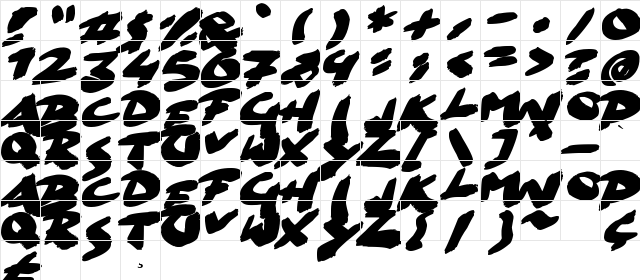
Go Faster Brush Regular
Design Context for Go Faster Brush Typeface
Go Faster Brush flows with the natural rhythm of handwritten lettering, making it ideal for designs that call for warmth and personal expression.
Font Pairing: Combine Go Faster Brush with a simple geometric sans for maximum contrast — the tension between flowing curves and clean structure is a classic typographic pairing.
Pro Tip: Pair Go Faster Brush with a clean sans-serif for supporting text. The contrast between fluid script and geometric structure creates an elegant typographic hierarchy.